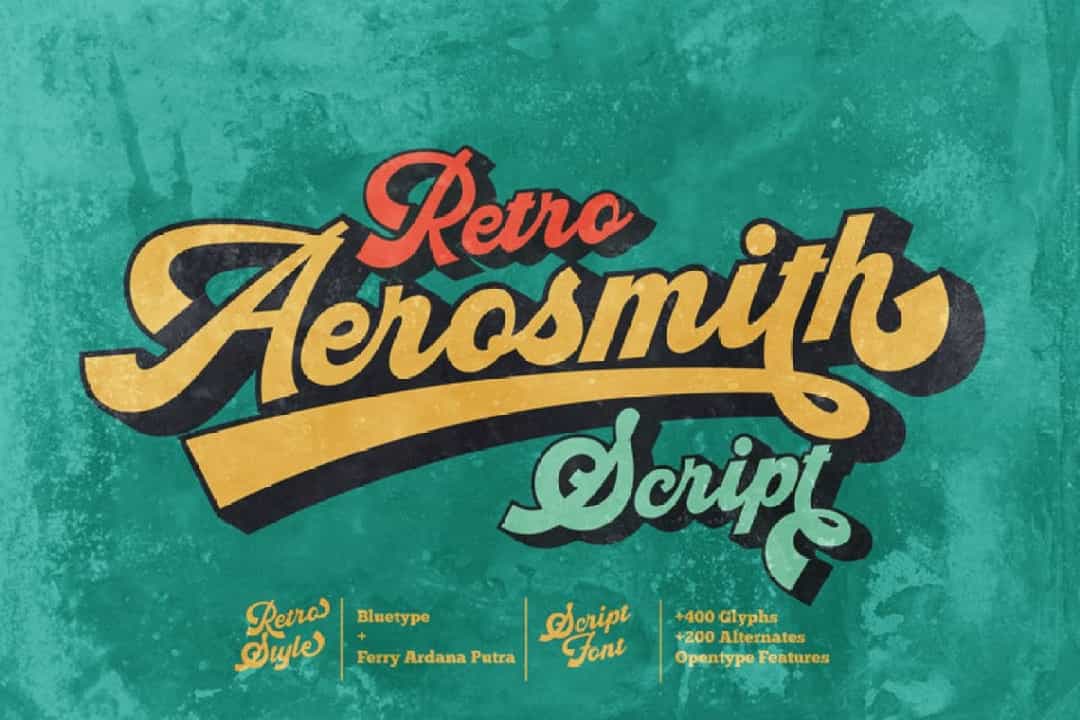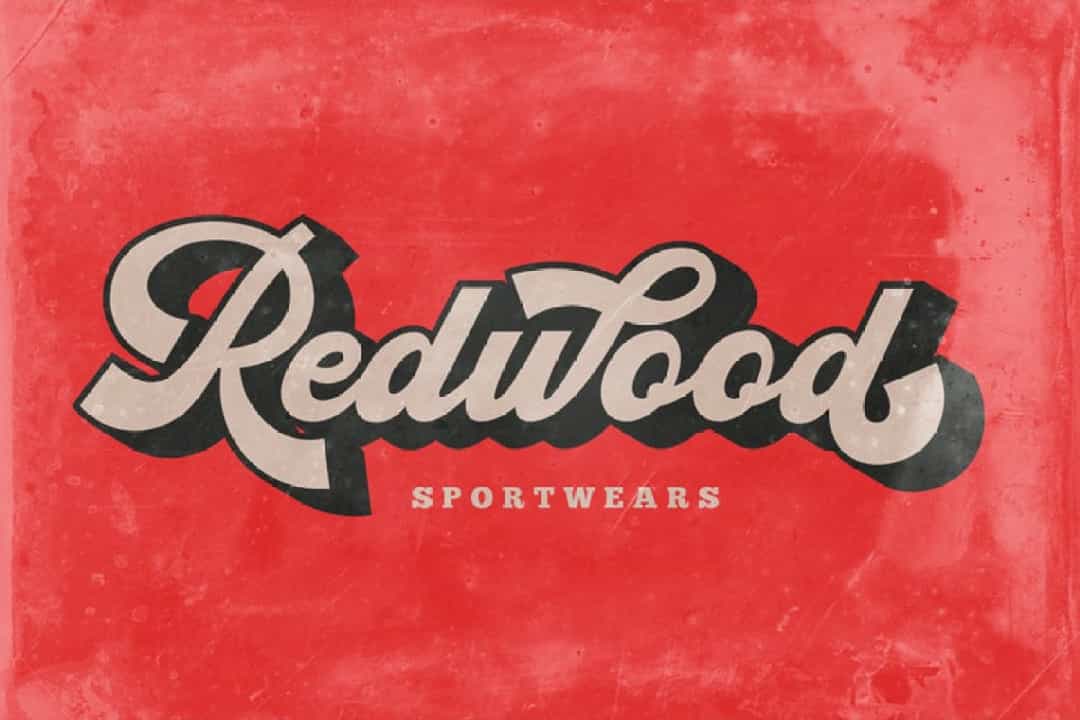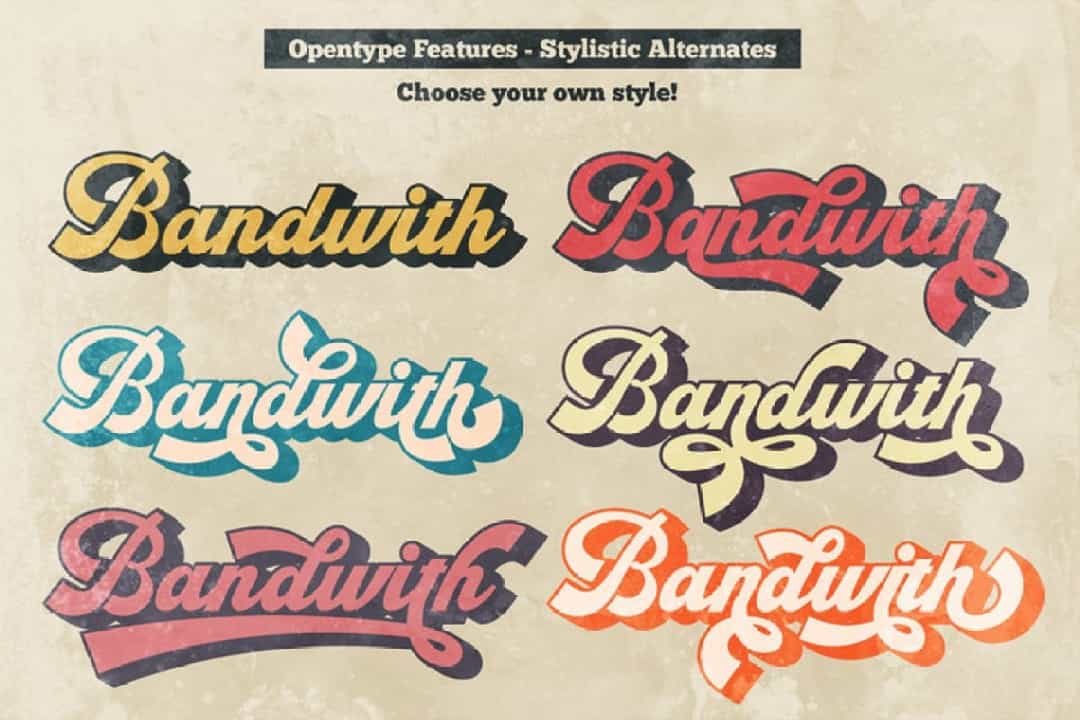
Aerosmith belongs to the group of typefaces that can be classified as a bold retro script. These three muckereers are capable of coming up with instant old-fashioned designs. Increase the level of sophistication with all the stylistic sets and fine swashes that are available to this font.